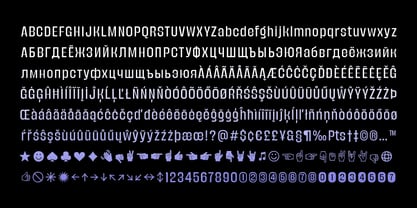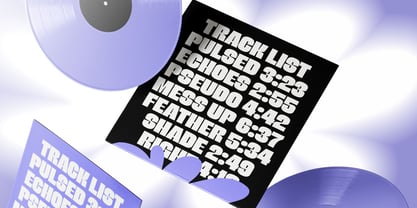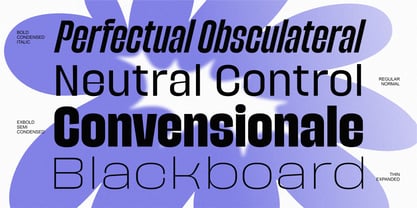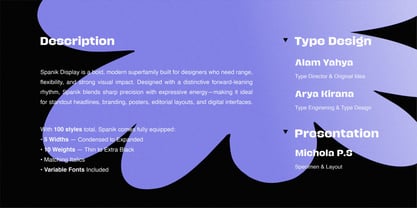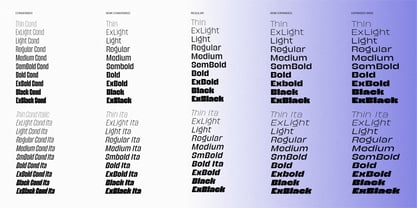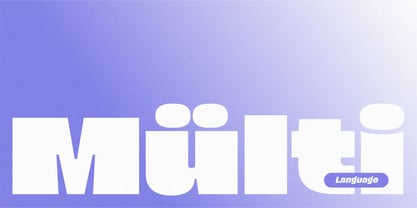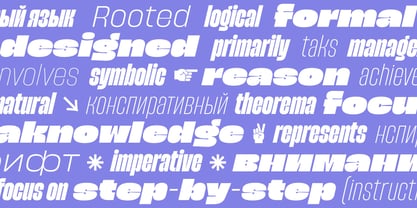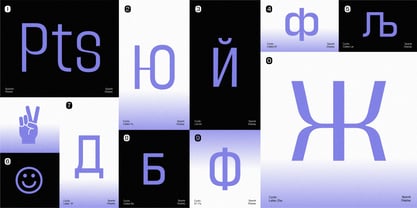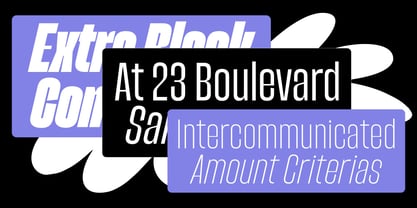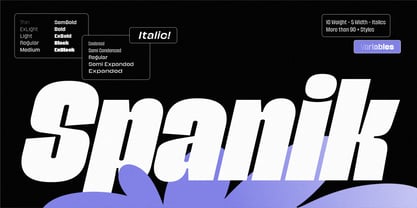
Spanik Variable
Die Schriftfamilie Spanik Variable wurde von Annas Alam Yahya, Bagus Arya Kirana, Michola Putra Siswandi entworfen und von Typeberry veröffentlicht. Spanik Variable enthält 1 Stile. Mehr über diese Familie
Spanik Display is a bold, modern superfamily built for designers who need range, flexibility, and strong visual impact. Designed with a distinctive forward-leaning rhythm, Spanik blends sharp precision with expressive energy—making it ideal for standout headlines, branding, posters, editorial layouts, and digital interfaces.
With 100 styles total, Spanik comes fully equipped:
• 5 Widths — Condensed to Expanded
• 10 Weights — Thin to Extra Black
• Matching Italics
• Variable Fonts Included
This wide system gives you complete control over tone, scale, and expression.
Spanik’s character set is clean, contemporary, and highly adaptable—perfect for everything from futuristic aesthetics to bold sports branding, tech visuals, advertising, and high-impact typographic compositions.
If you’re looking for a typeface family that delivers versatility, performance, and a striking modern voice, Spanik Display is ready to elevate your next project.